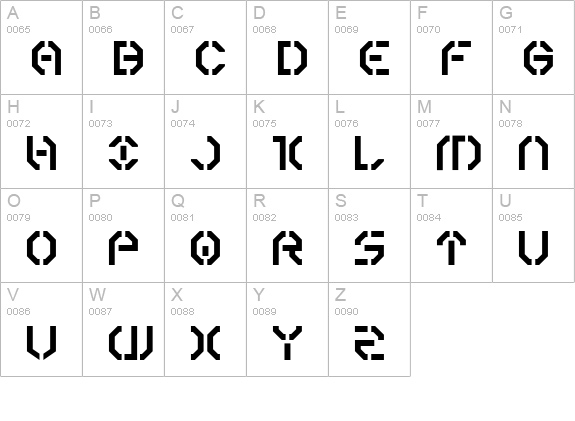
Year 3000 font is a futuristic and innovative typeface that perfectly captures the essence of a technologically advanced world. With sleek lines and sharp edges, this font is ideal for projects that require a modern and cutting-edge look. Its unique design sets it apart from traditional fonts, making it a standout choice for branding, advertising, and digital media. Best of all, Year 3000 font is available for free download at FontsMarket.com. Whether you're a designer looking to add a futuristic touch to your work or a creative individual wanting to experiment with a bold new style, Year 3000 font is the perfect choice. Download it now and take your projects to the next level with this dynamic and eye-catching font.